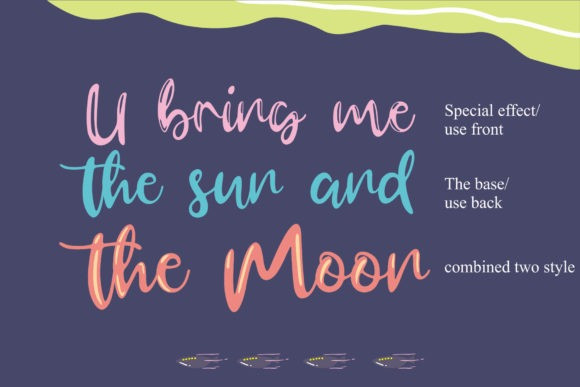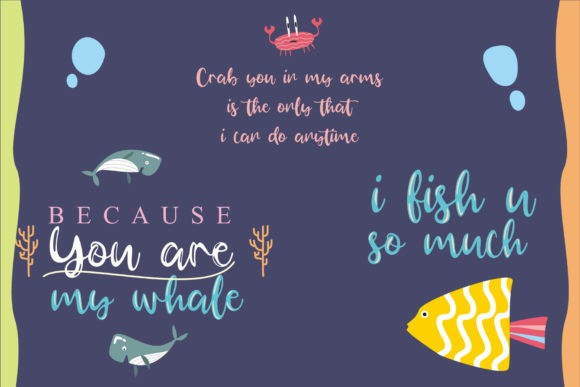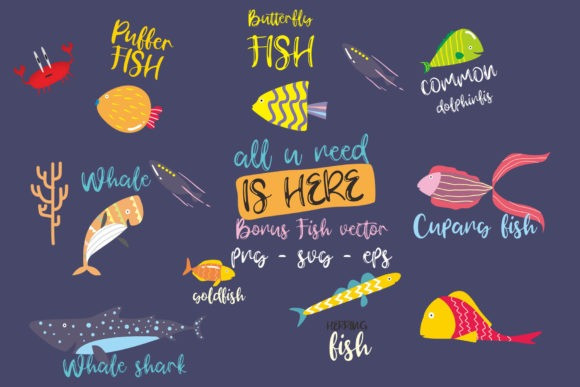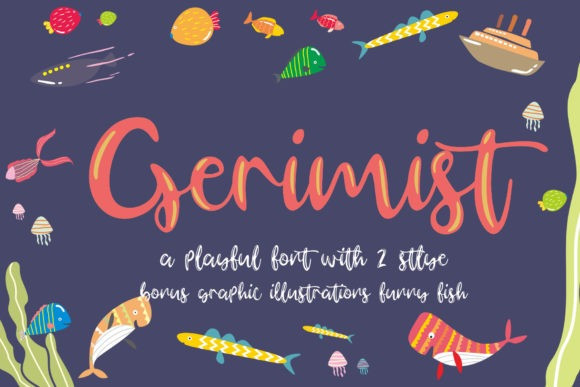
Gerimist Playful Font
Hello Guys, This is a fun playful script font, script with unique strokes and alternates character make it beautiful and look natural as written by hand. It’s a perfect complement to your font collection. Introducing Gerimist Playful Font. It’s a unique and enchanting display font. This playful font will look truly outstanding in a wide range of contexts. This font can be used for anything such as T-Shirt designs, phone cases, greeting cards, invitations, mugs and so much more! Look for your inner shark and be creative with it!